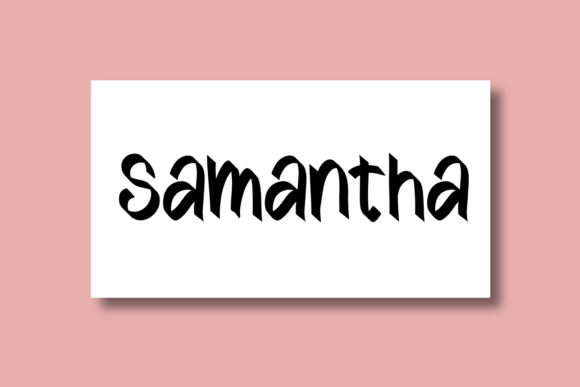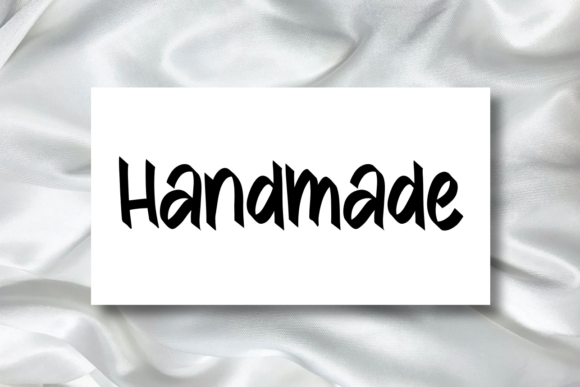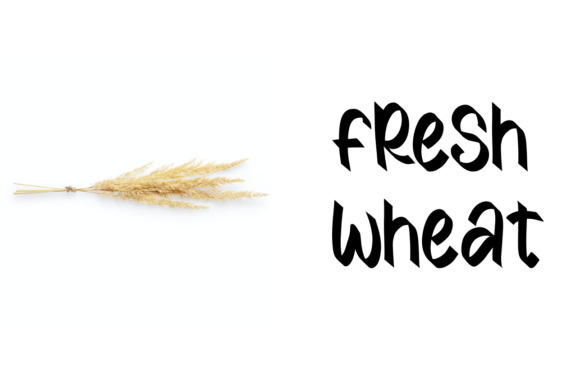
Introducing Farmhouse Font: The Ultimate Chic and Trendy Handwritten Font
Are you a designer, crafter, or DIY enthusiast looking for a font that can elevate your creative projects to the next level? Look no further than Farmhouse Font, a beautiful and trendy handwritten font that’s perfect for a variety of applications. In this article, we’ll explore the features and benefits of Farmhouse Font, and show you how it can help you turn your creative ideas into stunning works of art.
Farmhouse Font is a modern and stylish handwritten font that’s inspired by the rustic charm of farmhouse decor. With its elegant and flowing script, this font is perfect for adding a touch of sophistication and whimsy to your designs. Whether you’re creating social media graphics, crafting signs and banners, or designing invitations and cards, Farmhouse Font is the perfect choice.
- Handwritten style: Farmhouse Font features a beautiful, handwritten script that’s both elegant and approachable.
- Trendy and modern: This font is perfect for designers and crafters who want to create modern and stylish designs that are on-trend.
- Versatile: Farmhouse Font can be used for a wide range of applications, from social media graphics to DIY projects and more.
- Easy to read: Despite its elegant script, Farmhouse Font is easy to read and understand, making it perfect for body text and headlines.
Using Farmhouse Font for Instagram and Social Media
If you’re a social media enthusiast or influencer, you know how important it is to have a consistent and stylish aesthetic. Farmhouse Font is perfect for creating eye-catching Instagram graphics, Facebook posts, and Twitter headers that will make your followers take notice. With its trendy and modern script, this font is sure to elevate your social media game and help you stand out from the crowd.
Using Farmhouse Font for DIY Projects
Are you a crafter or DIY enthusiast looking for a font that can add a personal touch to your projects? Farmhouse Font is perfect for creating beautiful and rustic signs, banners, and decorations for your home or office. With its elegant script and whimsical feel, this font is sure to add a touch of charm and personality to your DIY projects.
Benefits of Using Farmhouse Font
- Adds a personal touch: Farmhouse Font is perfect for adding a personal touch to your designs and DIY projects.
- Elevates your brand: If you’re a designer or business owner, Farmhouse Font can help elevate your brand and make it more stylish and sophisticated.
- Perfect for rustic and vintage designs: If you’re creating designs with a rustic or vintage theme, Farmhouse Font is the perfect choice.
Tips and Tricks for Using Farmhouse Font
- Pair with bold fonts: For a stylish and modern look, pair Farmhouse Font with bold and sans-serif fonts.
- Use for headlines and body text: Farmhouse Font is perfect for both headlines and body text, making it a versatile font for a wide range of applications.
- Experiment with colors: Farmhouse Font looks great in a variety of colors, from soft pastels to bold and bright hues.